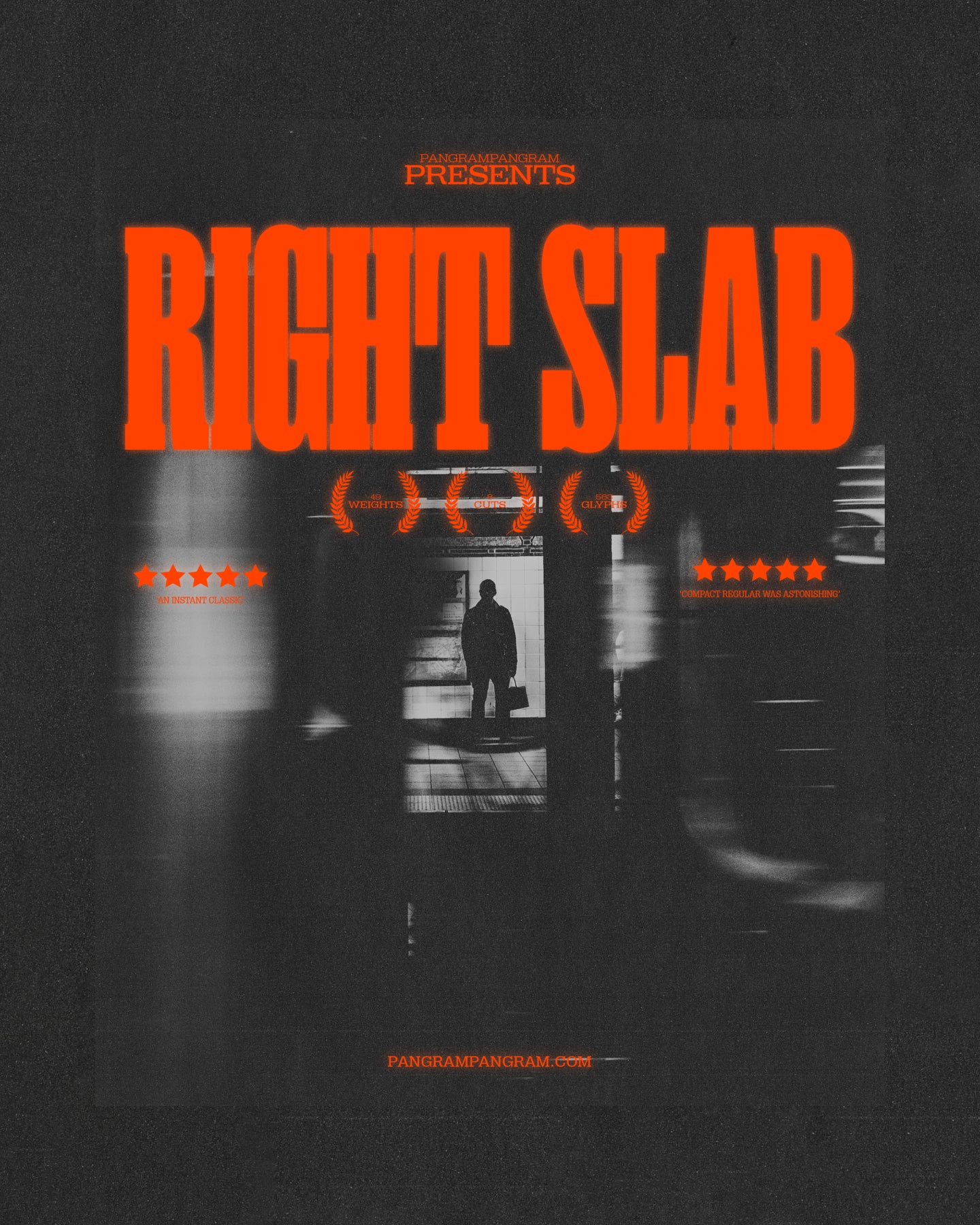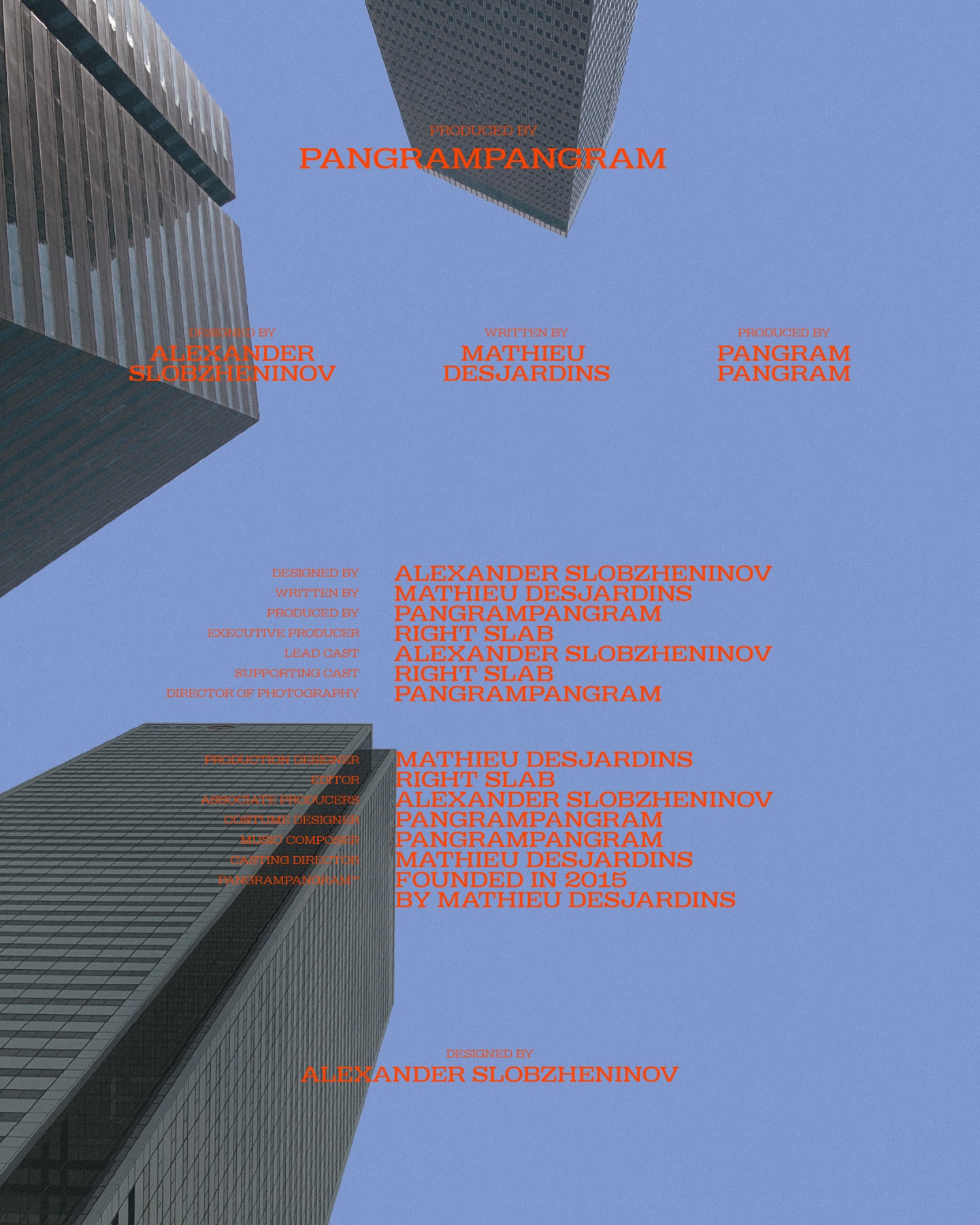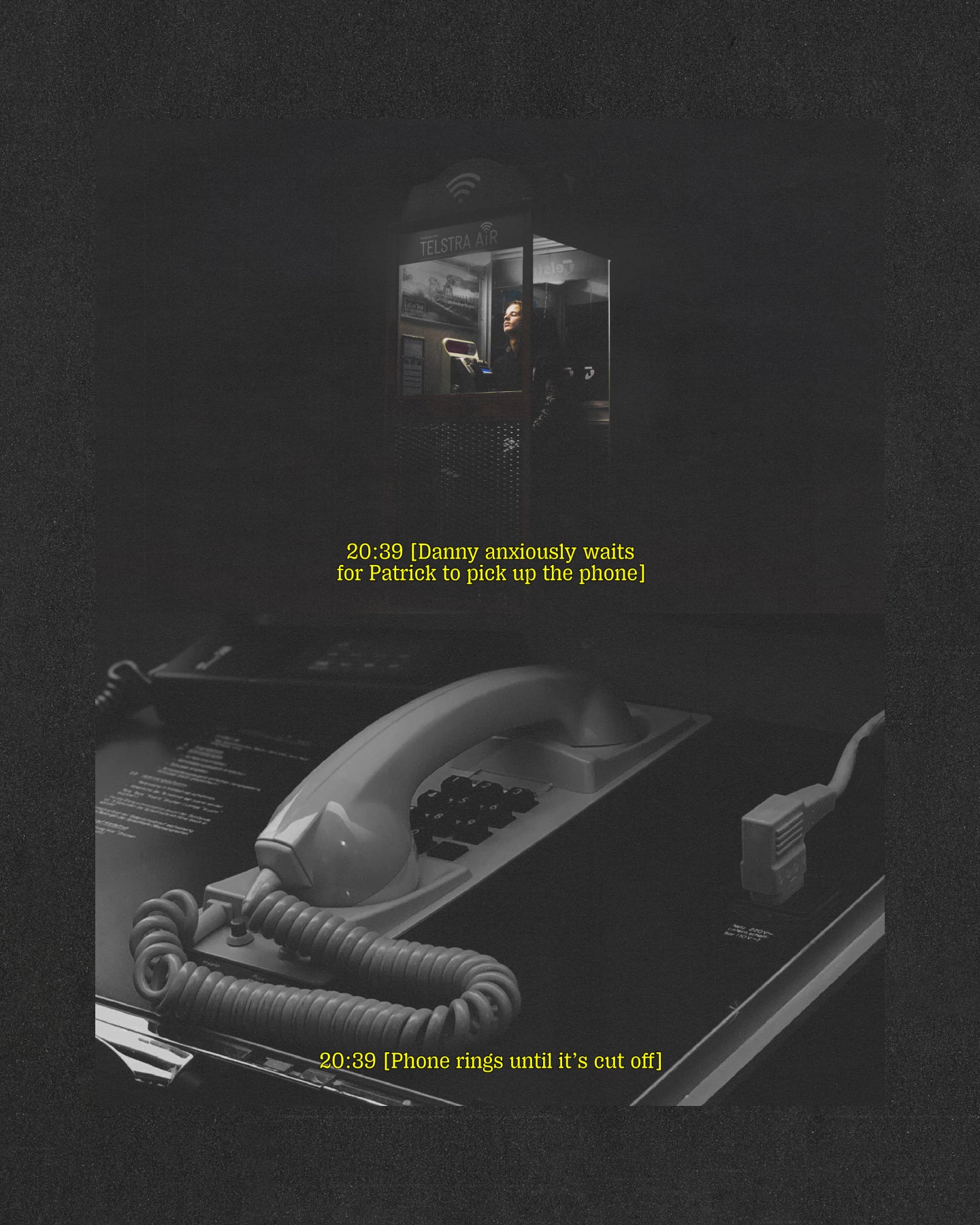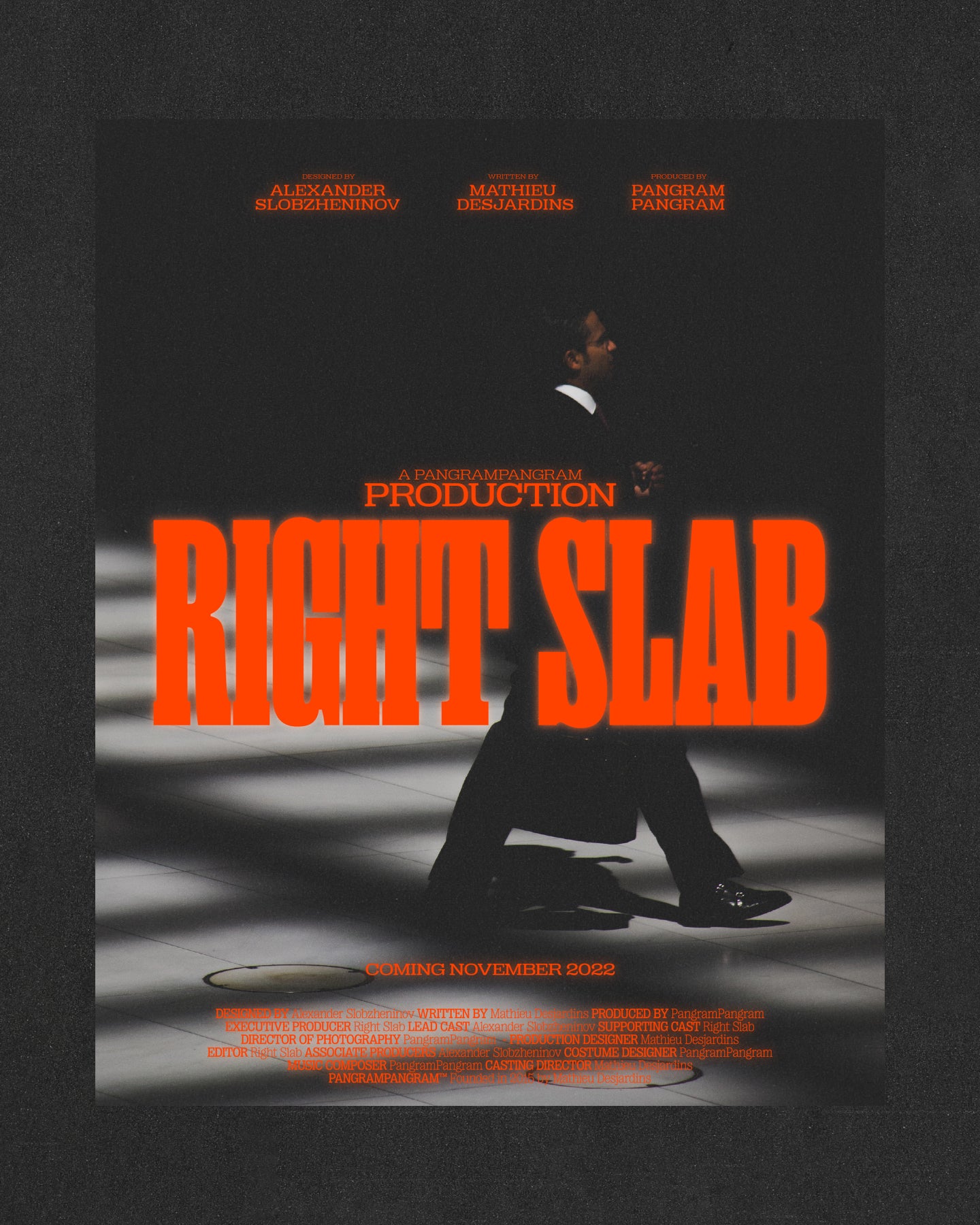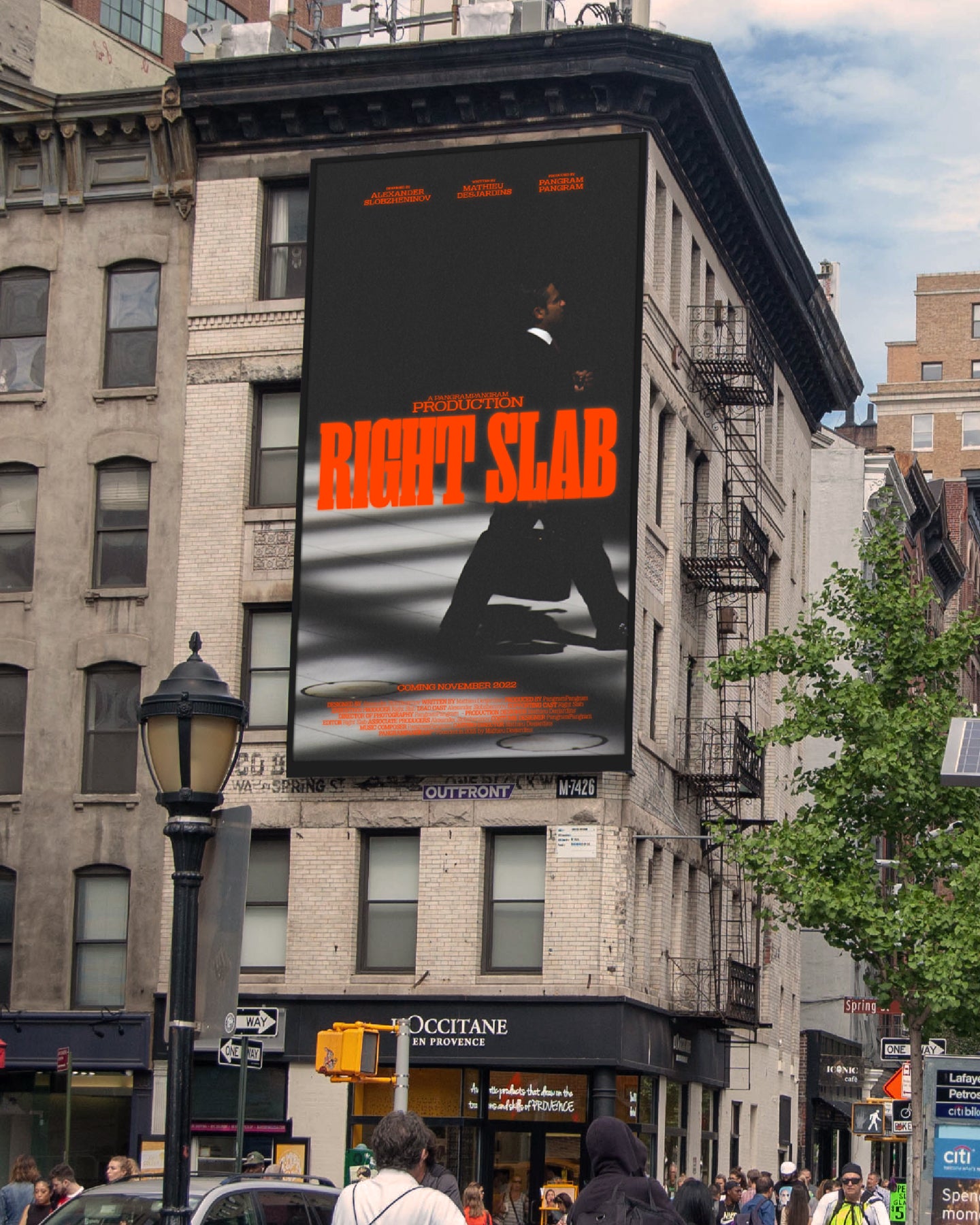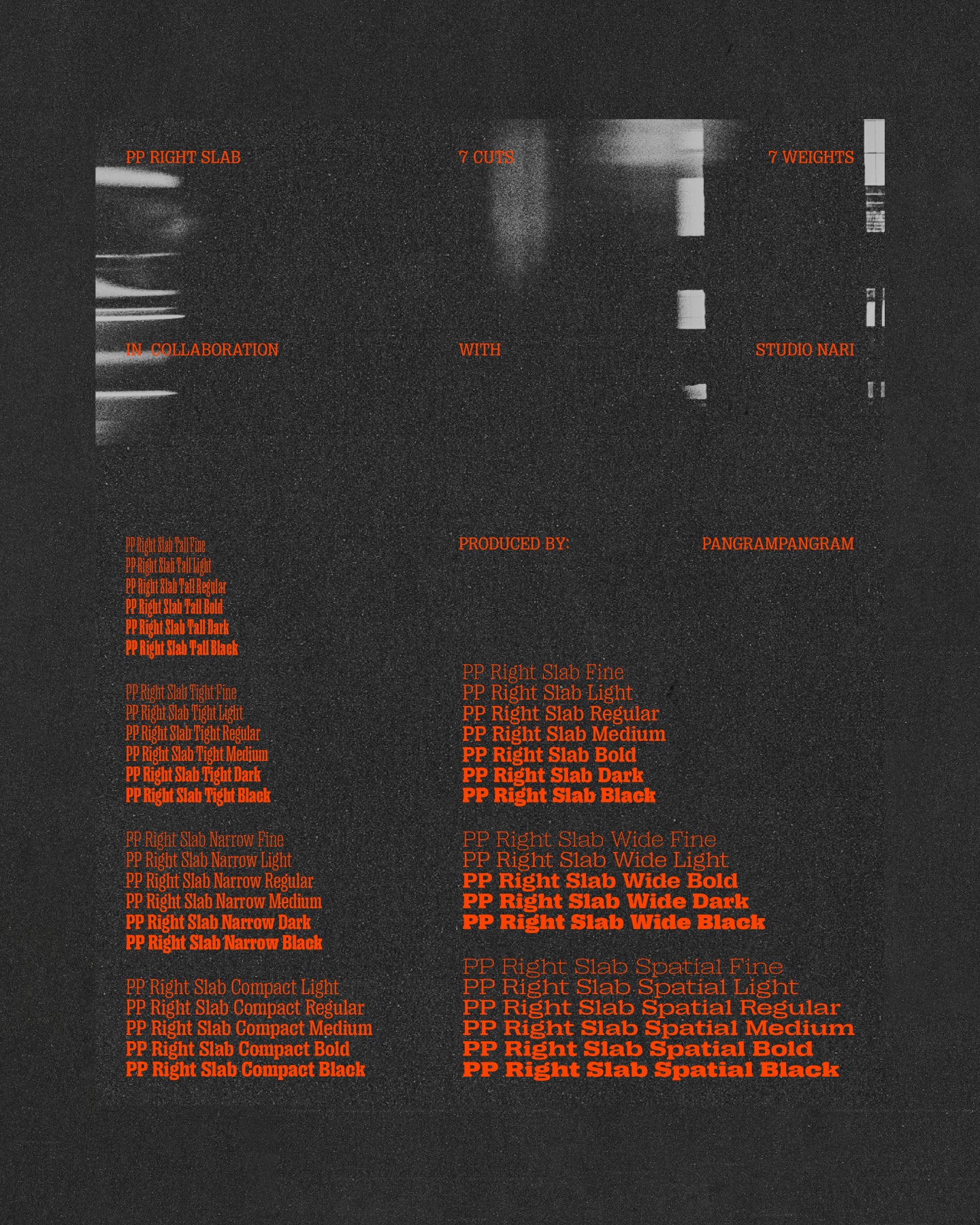
Right Slab
Vintage cinema grit meets ultra-modern type design, with chunky serifs, extended forms, and serious screen presence.
Looks like a classic. Hits like a thriller.
Right Slab is that big boi of the family. Massive at first glance, the typeface quickly turns out to be your good old friend. In its heavy styles, Right Slab unapologetically occupies all of the space with its chunky serifs, while light and narrow cuts leave some more air. The typeface is perfect for grabbing attention in a nice and fun way. It feels most comfortable in large display sizes, but styles near Regular can handle some paragraphs for text too. Right Slab is a serif brother of Right Grotesk, from which it has inherited low contrast, large x-height and a ton of variable styles covering 7 weights × 7 widths.